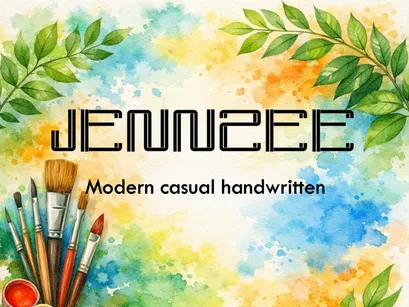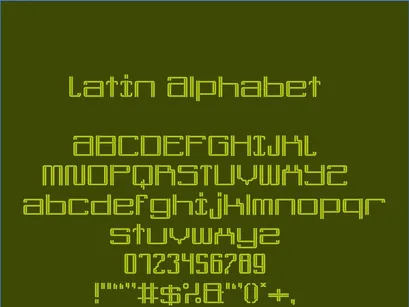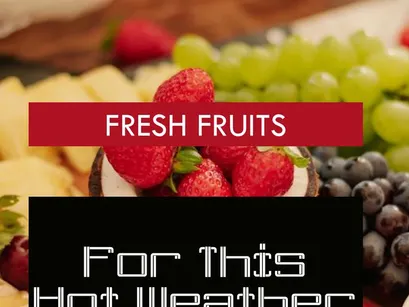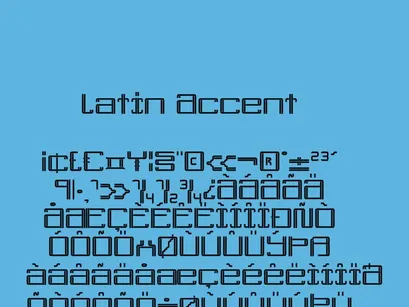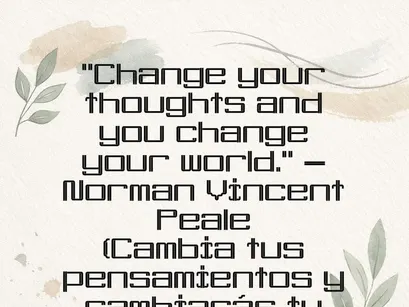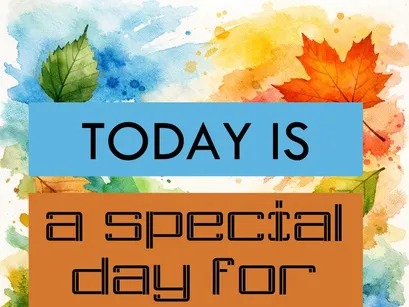
JENNZEE is a modern, casual, handwritten typeface with an artisanal, geometric touch. Designed for creative projects, covers, inspirational quotes, and emotional branding, it combines clean lines with a modern structure that preserves the essence of a hand-drawn stroke.
It includes Latin characters and accents, making it ideal for text in both English and Spanish.
Perfect for designers, illustrators, and creators looking for a font that strikes a balanced, personality-filled chord between the digital and the artistic.